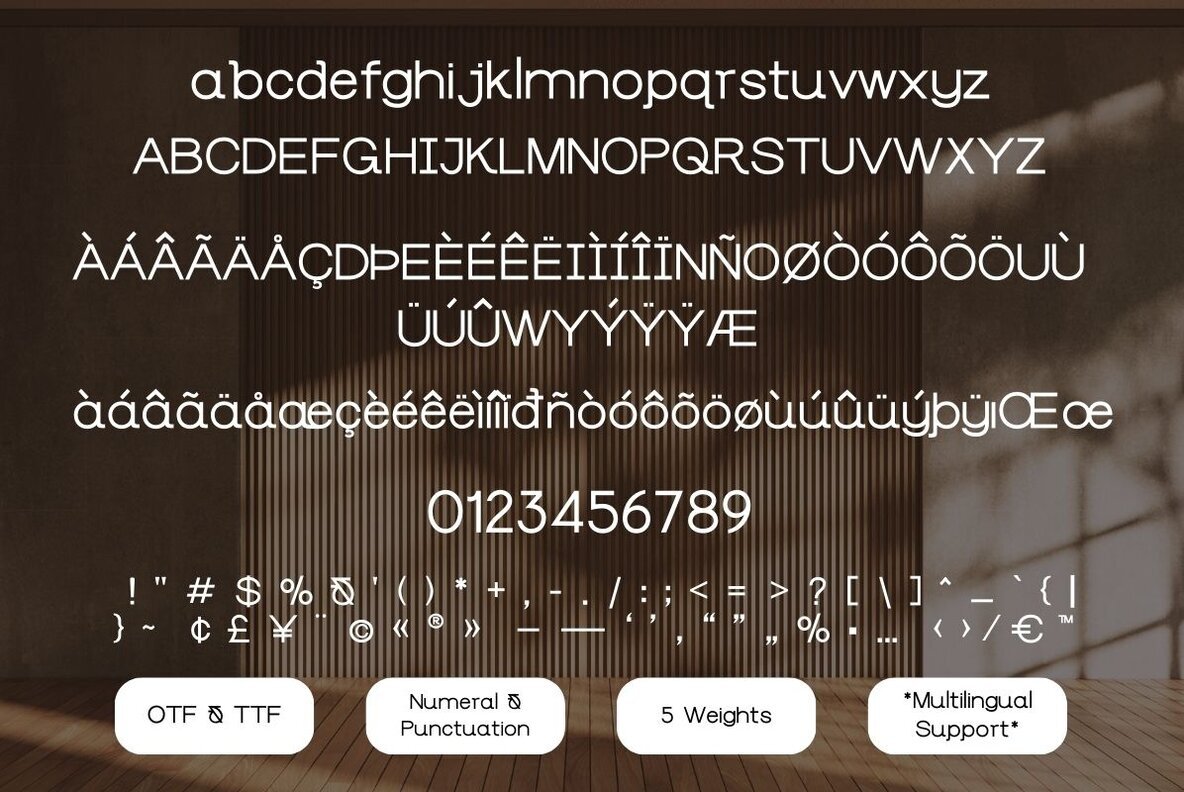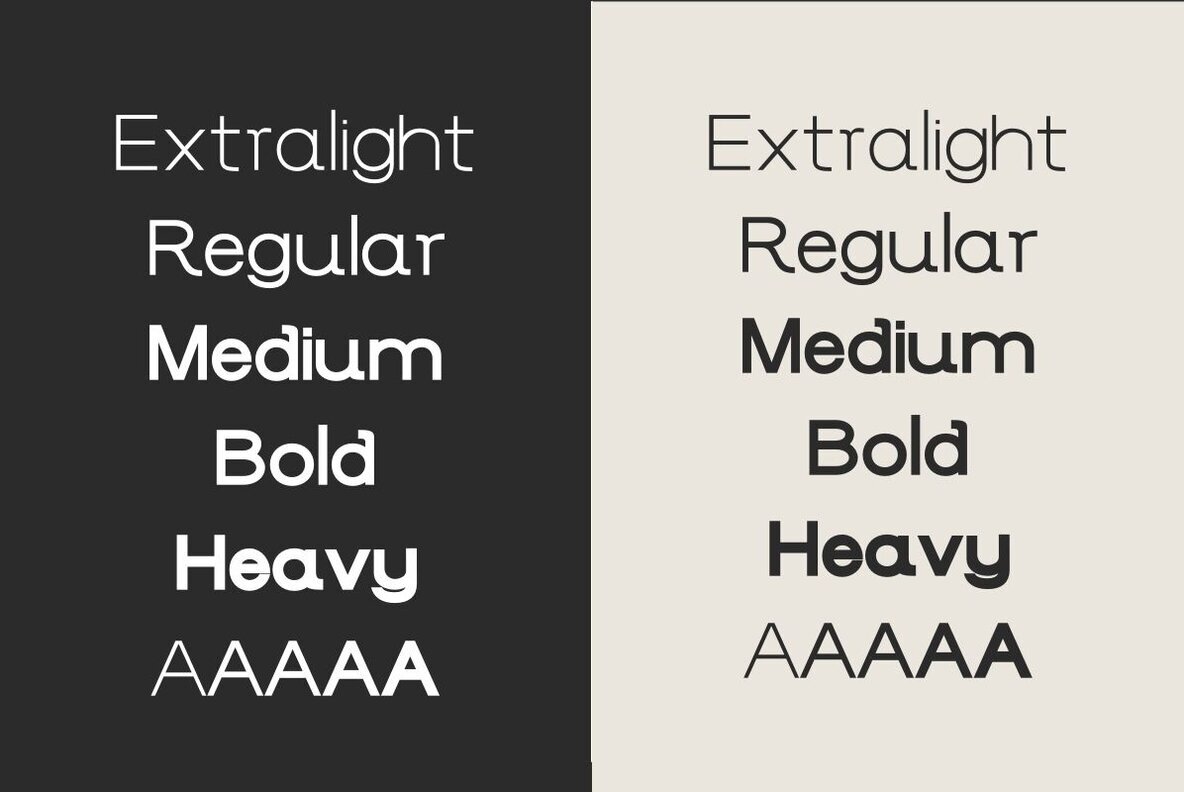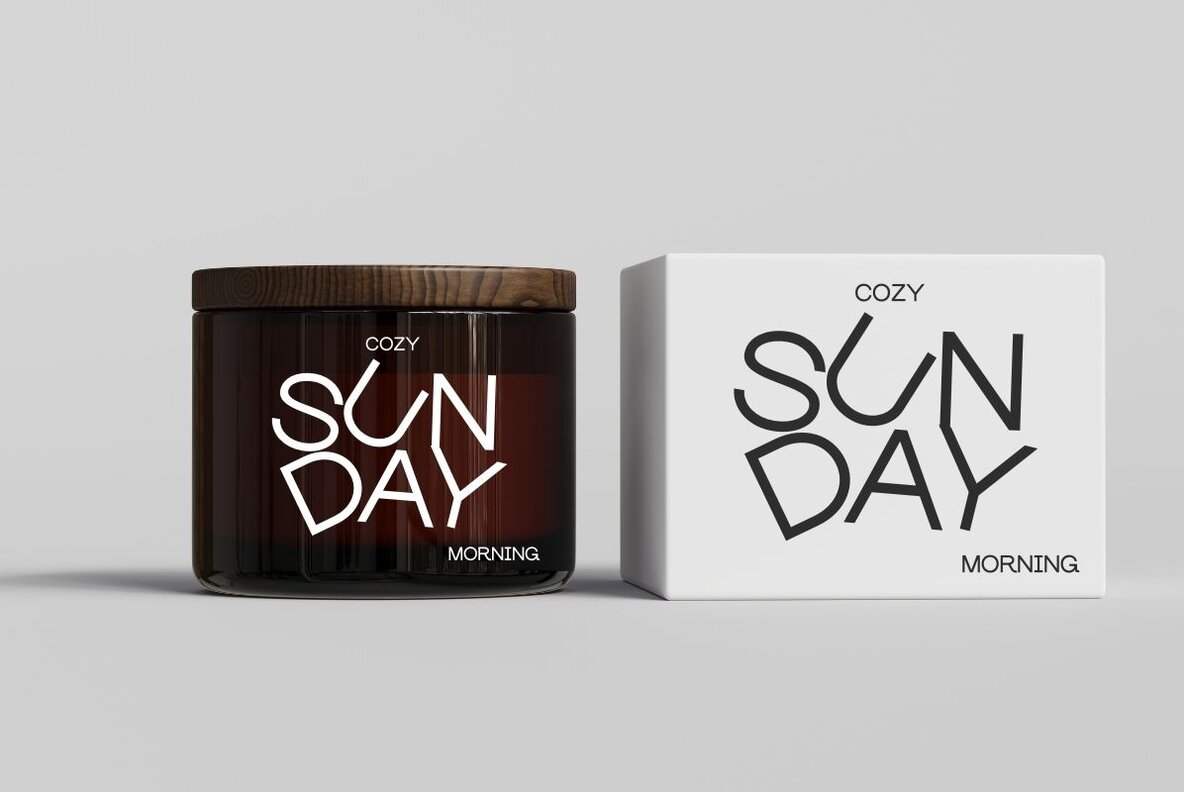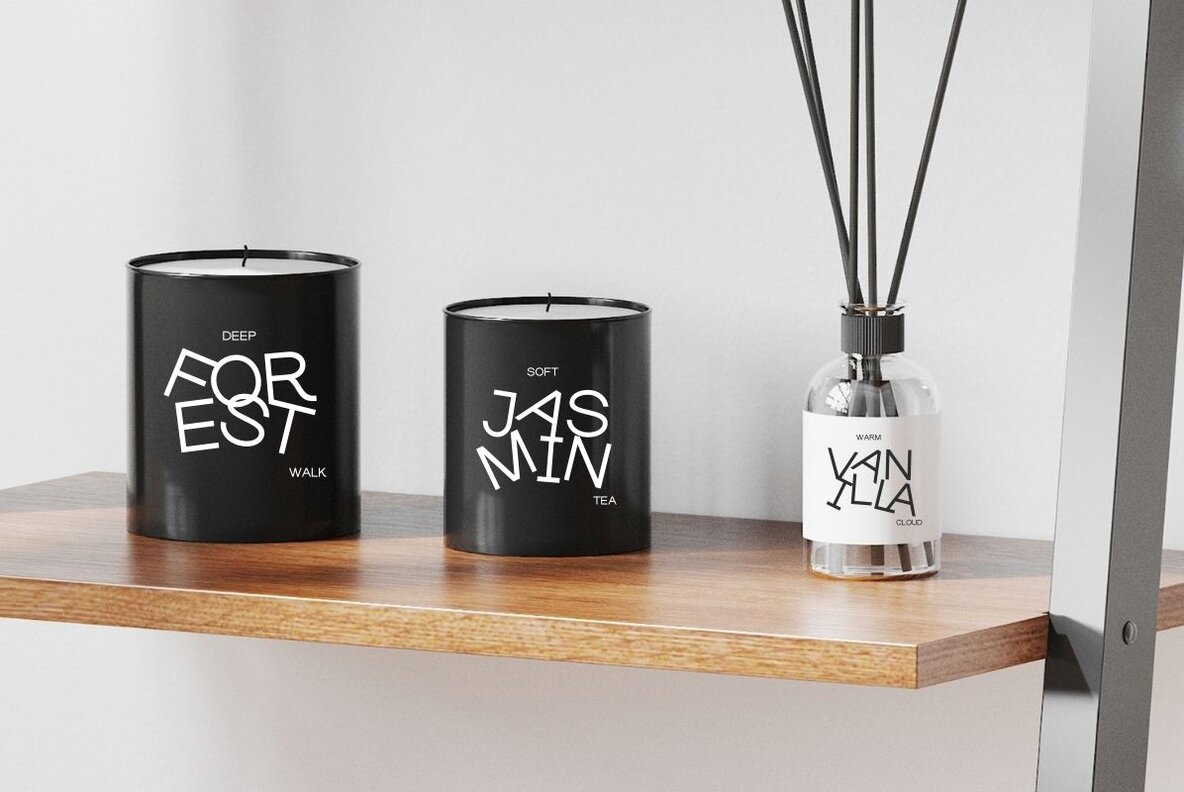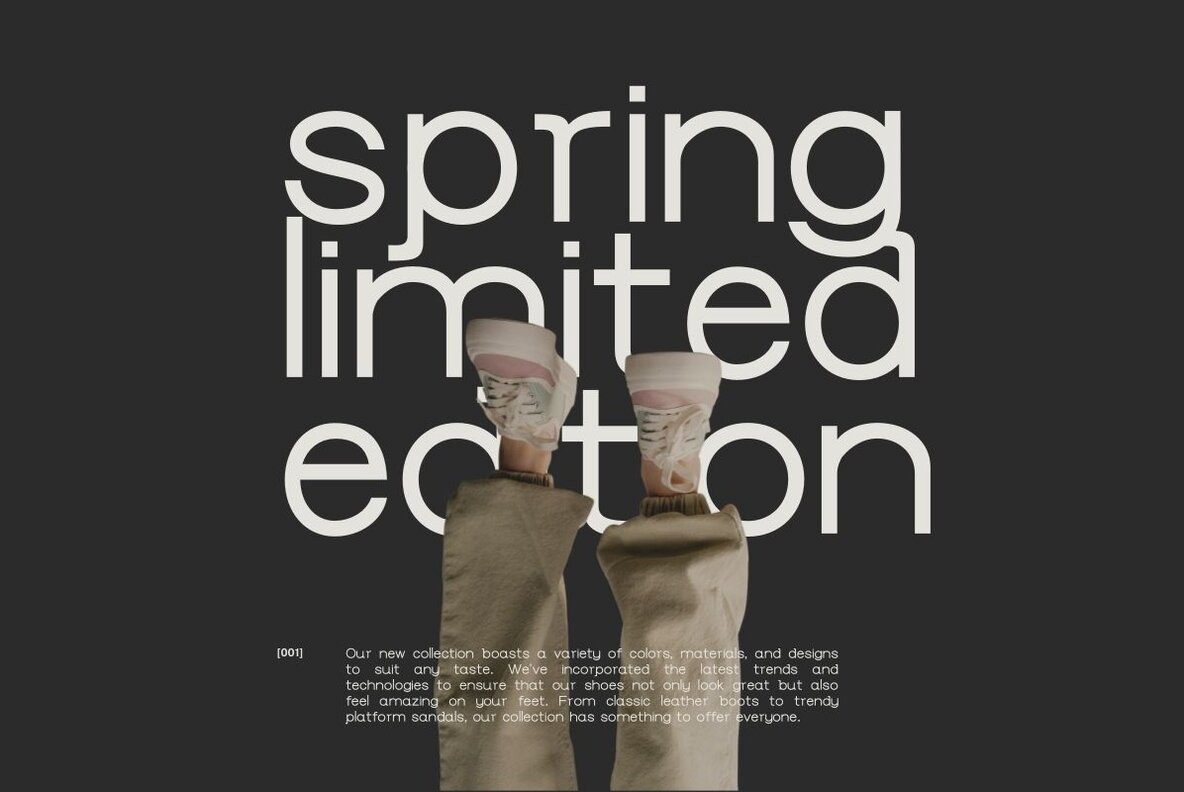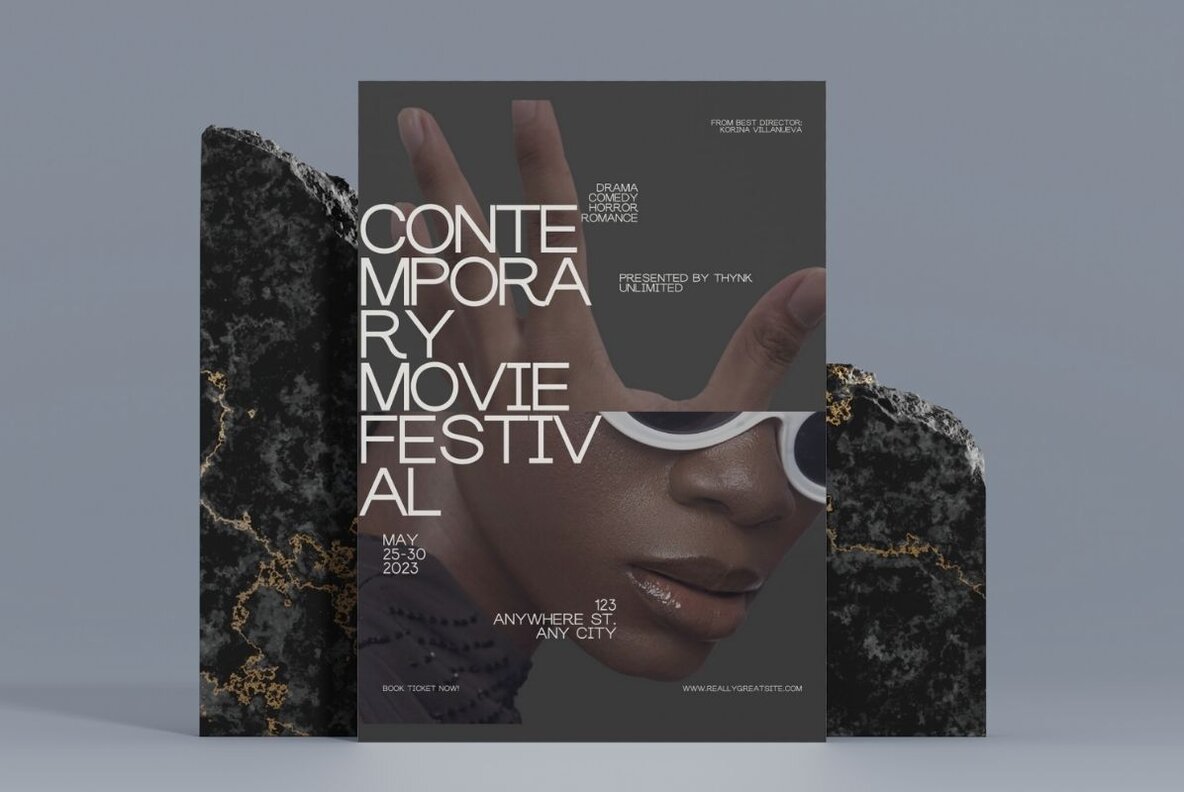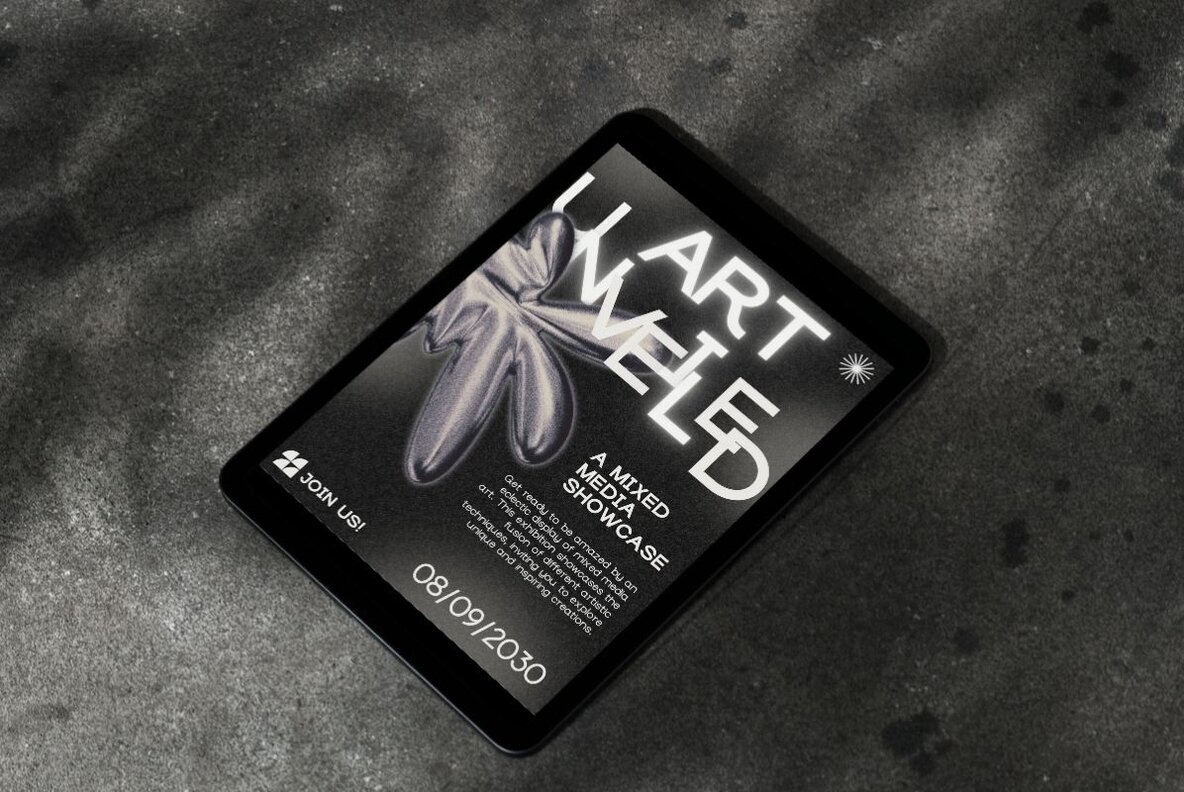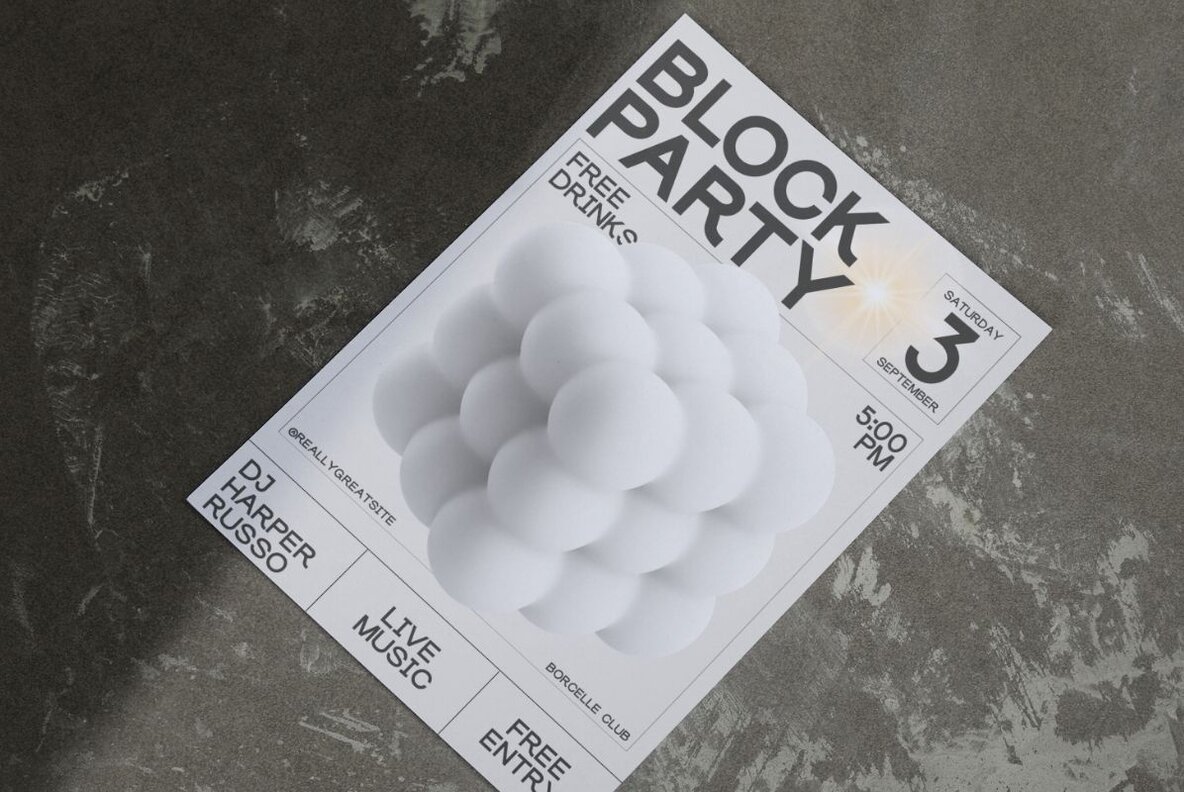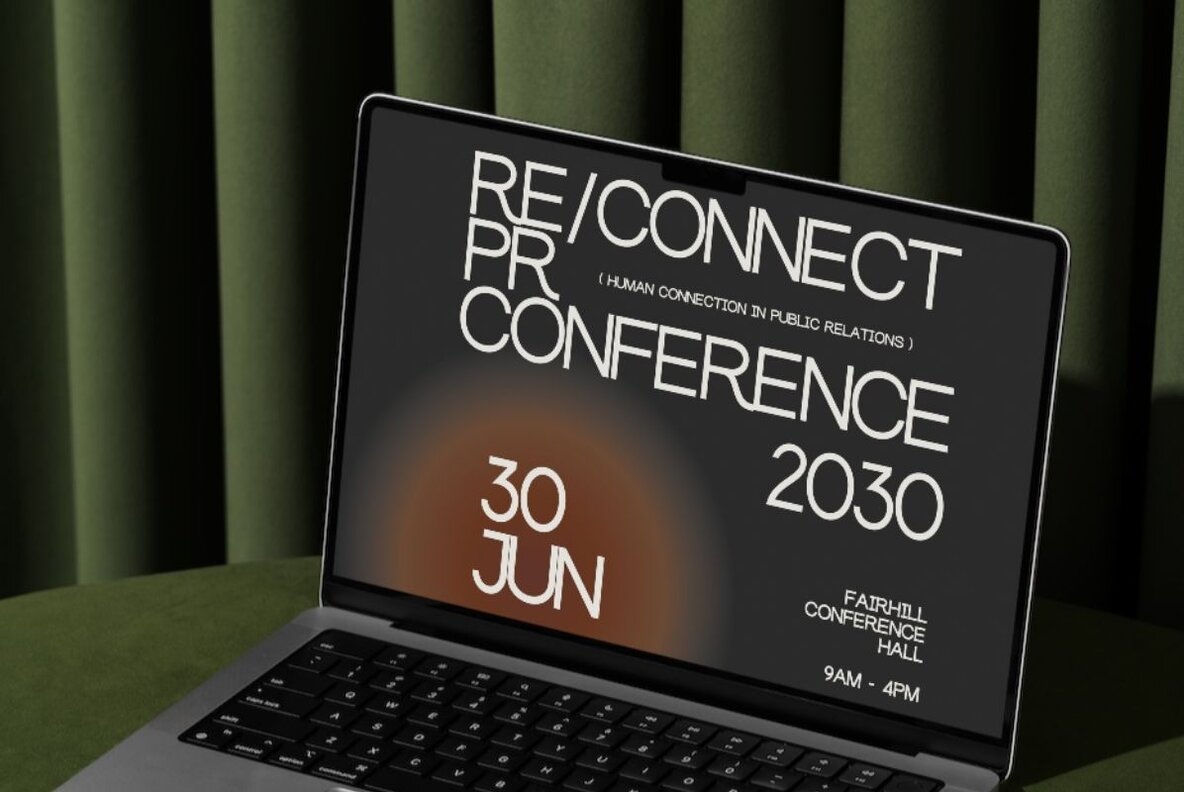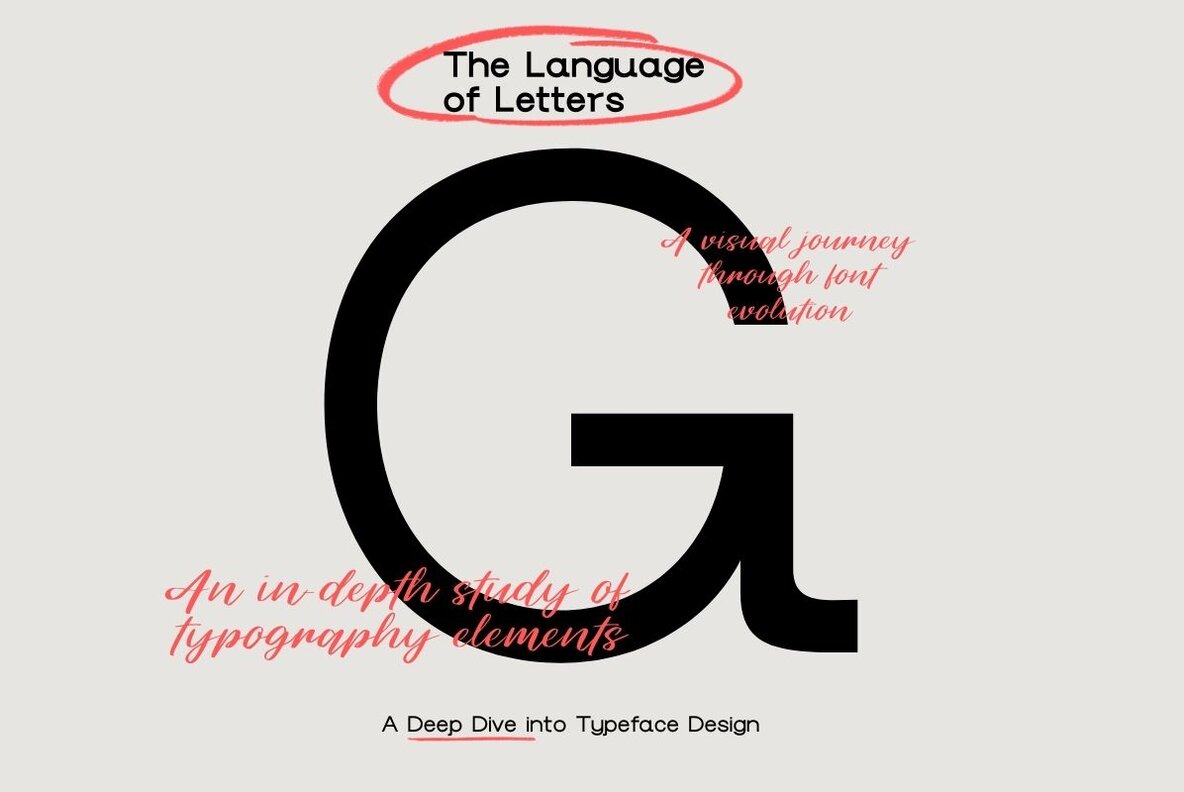
Cozy Gelato Font
The Cozy Gelato Sans Font is a five-weight, modern geometric sans serif typeface known for its minimalist and stylish design. It offers extensive multilingual support, allowing for versatile applications across various design projects. This font is ideal for editorial design, brand packaging, typography posters, logotypes, and print designs.Cozy Gelato Sans: A Modern Geometric Sans Serif